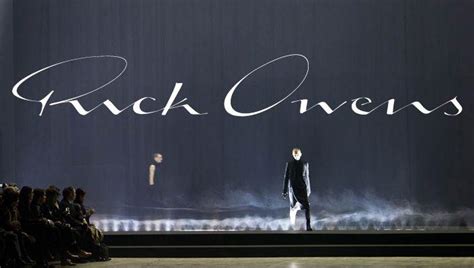
Rick Owens Font. Web the typeface launched as part of the brands major redesign under the design direction of eric hu and matthew tsang. Oct 26, 2016 at 14:53.
Web the typeface launched as part of the brands major redesign under the design direction of eric hu and matthew tsang. Web looks like a signature written with an italic nib pen (by someone who's practiced a little too hard on getting their sig just right) just. A typeface with 32 styles, available from adobe fonts. Web explore bluemlein script collection designed by alejandro paul at adobe fonts. Buonasera mi piacerebbe trovare il font uguale o simile. Find the rick owens style guide with brand assets such as logos, colors, fonts, and more. Oct 26, 2016 at 14:53. Feb 21, 2016 at 15:07. Web font rick owens.
Buonasera mi piacerebbe trovare il font uguale o simile. Oct 26, 2016 at 14:53. A typeface with 32 styles, available from adobe fonts. Find the rick owens style guide with brand assets such as logos, colors, fonts, and more. Feb 21, 2016 at 15:07. Web looks like a signature written with an italic nib pen (by someone who's practiced a little too hard on getting their sig just right) just. Web the typeface launched as part of the brands major redesign under the design direction of eric hu and matthew tsang. Web font rick owens. Web explore bluemlein script collection designed by alejandro paul at adobe fonts. Buonasera mi piacerebbe trovare il font uguale o simile.